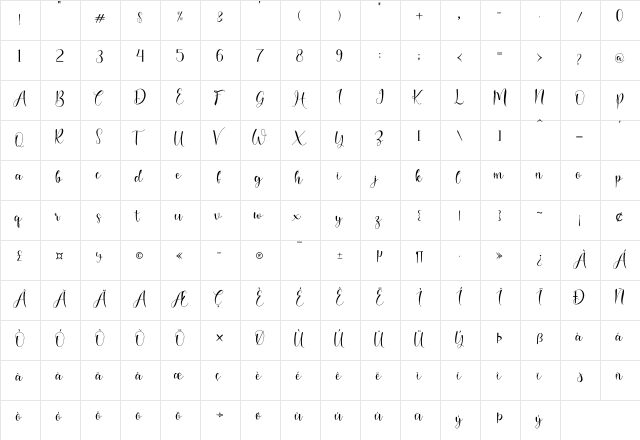
shadella Regular
Design Context for shadella Typeface
shadella is a composed and adaptable typeface that performs quietly and consistently across a wide range of design contexts.